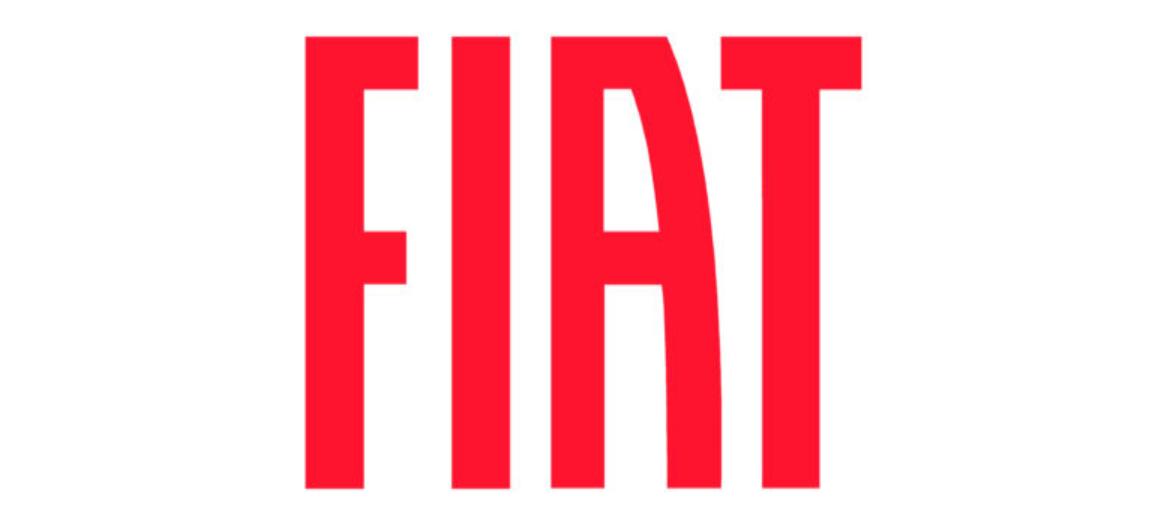
Fiat Font
What Font is Used in the Fiat Logo?
Fiat Font is a custom-designed typeface created exclusively for the brand’s logo. The distinctive lettering features clean, geometric lines and a strong, modern appearance that reflects Fiat’s Italian heritage and commitment to innovation. The simplicity of the design gives it a timeless quality, allowing it to evolve alongside the brand while maintaining instant recognizability.
I think the Fiat Font works perfectly because it captures the brand’s balance between practicality and style. Its bold, structured form communicates confidence and reliability, while the sleek, minimal design conveys modernity and sophistication. Since the font is fully custom, no exact match exists, reinforcing Fiat’s individuality in the global automotive landscape.